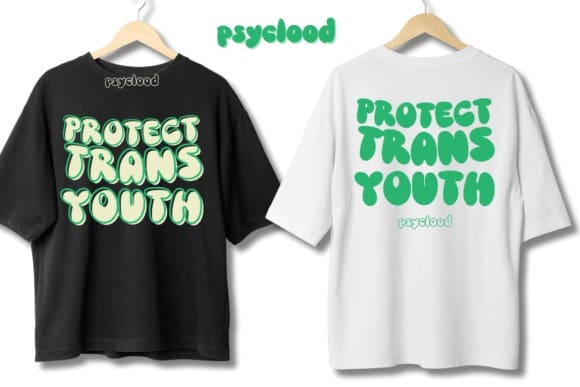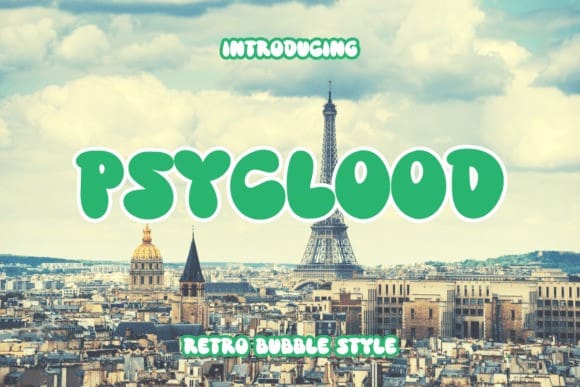
Psyclood Display Font
Psyclood Display Font is a fun and retro bubble font. It is perfect for designs that need a playful, cheery accent. Psyclood is suitable for book covers, posters, packaging, merchandise, logotypes, and many more!